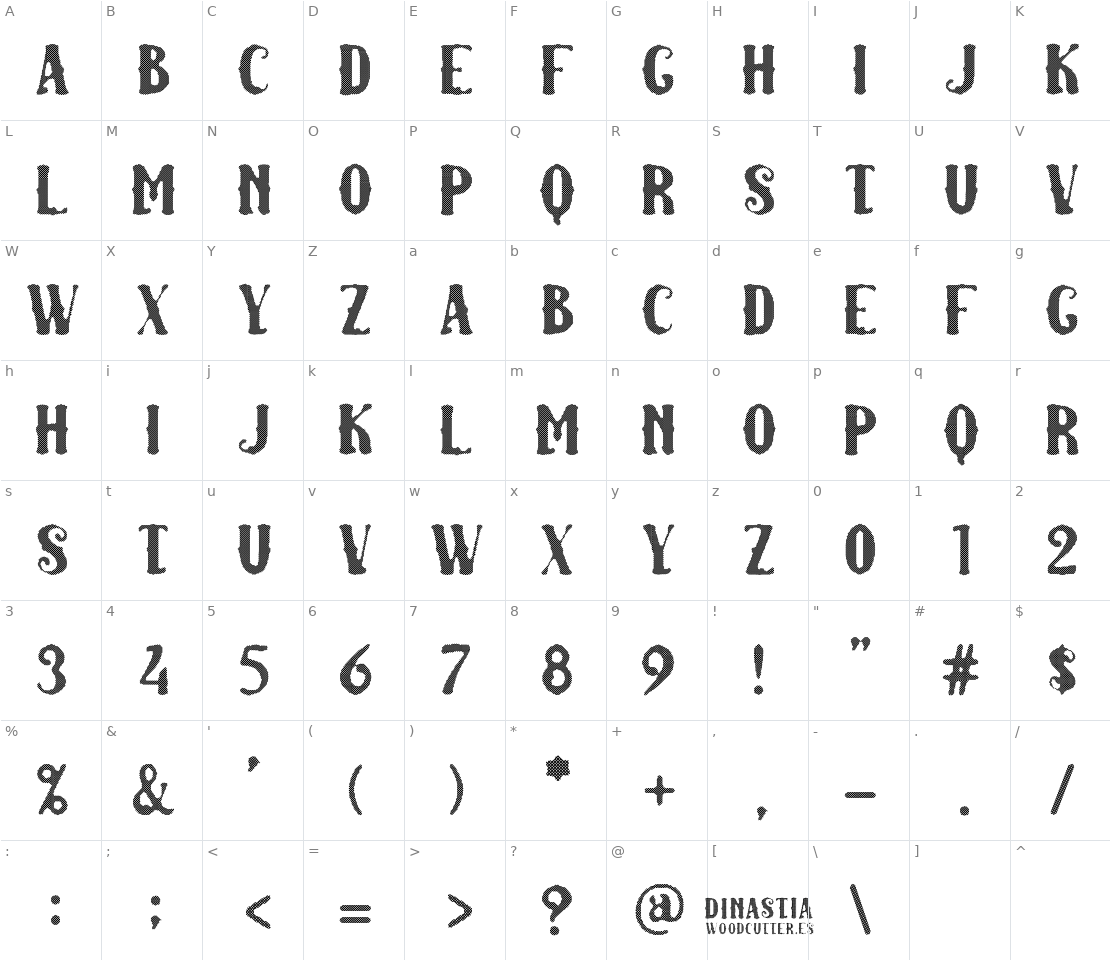
Dinastia
Dinastia is a condensed decorative serif from Woodcutter with a halftone texture baked into its bold letterforms, giving it the worn, inky look of old newspaper mastheads and vintage advertising. The ornamental details and tight proportions feel pulled from early 20th-century print ephemera, making it a strong pick for headlines, posters, and retro-themed branding where you want type that looks like it's been sitting in a letterpress drawer for decades.